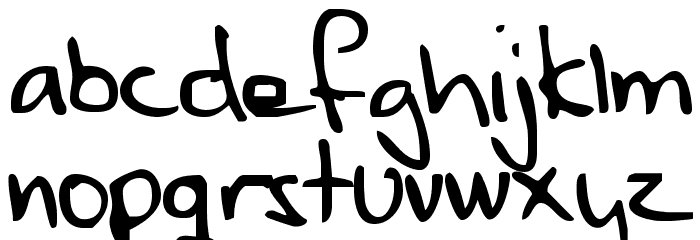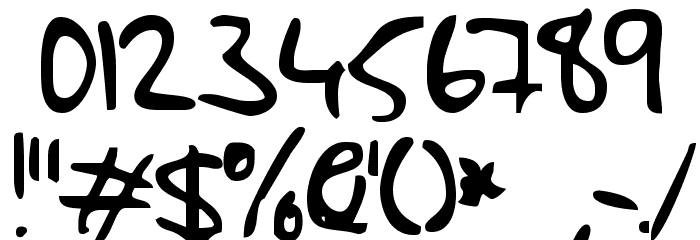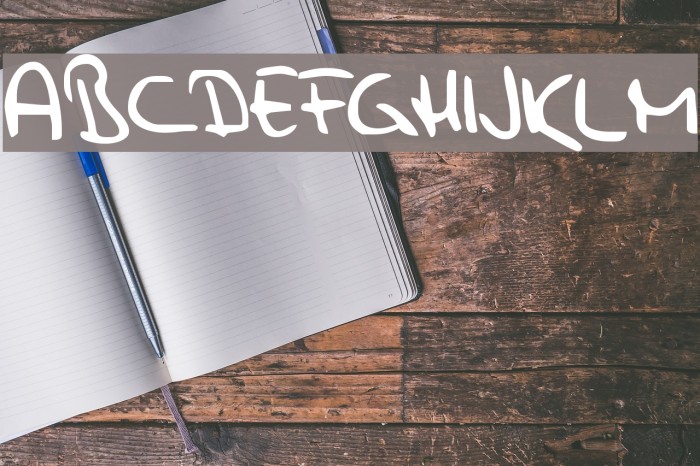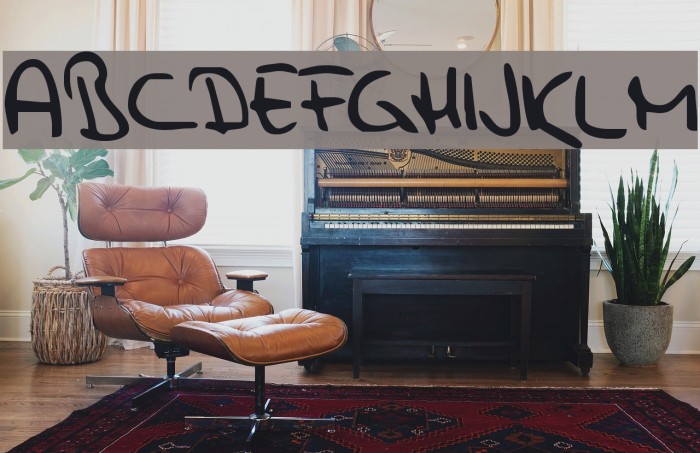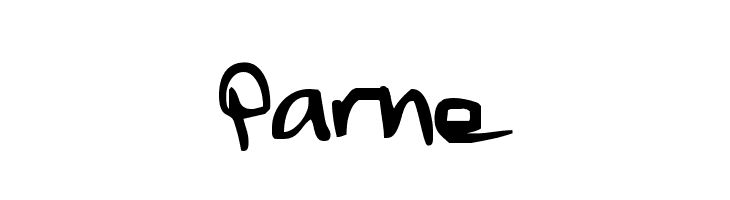
Parne Font
This font features a playful and informal handwritten style, characterized by its bold and slightly irregular strokes. The letters have a casual, organic feel with varying thickness, giving it a dynamic and lively appearance. The uppercase and lowercase letters maintain a consistent style, with rounded edges and a slightly slanted orientation, enhancing its approachable and friendly vibe. The numerals and special characters follow the same aesthetic, ensuring uniformity across all glyphs. This font is ideal for projects that require a personal touch or a creative flair.
A playful, bold handwritten font with a casual and dynamic style.
- Proposed Projects: Ideal for greeting cards, children's books, creative posters, and personal branding.
- Category: Handwritten
- Overall Style: Casual, Playful
- Use Case: Headlines, Logos, Creative projects